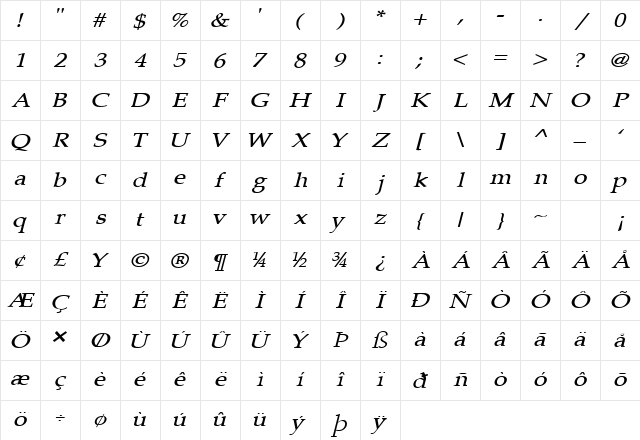
Tavern-Extended Italic
Tavern-Extended Family
Tavern-Extended Italic Font Preview
Tavern-Extended Italic Uppercase Preview
Tavern-Extended Italic Lowercase Preview
Tavern-Extended Italic Numeric Preview
Tavern-Extended Italic Character Map
Complete Tavern-Extended Italic glyph index. Displaying only characters natively supported by Tavern-Extended Italic font.
Tavern-Extended Italic Character Map
Design Context for Tavern-Extended
Tavern-Extended is a composed and adaptable typeface that performs quietly and consistently across a wide range of design contexts. The slanted form adds forward momentum and visual energy.
Pro Tip: Use Tavern-Extended for emphasis, pull quotes, and subheadings where its slanted energy can add rhythm to the layout.